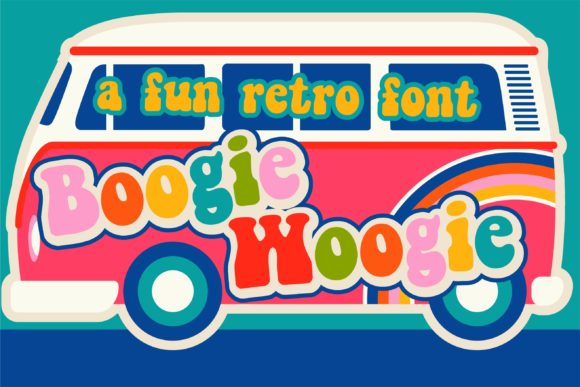
Prepare yourself to be entranced by the PN Boogie Woogie font, a groovy and eye-catching display font that exudes an infectious retro charm. Designed by the talented team at Illustration Ink, this font is a vibrant and playful dance of characters that will bring a smile to your face and transform your creative projects into captivating works of art.
Picture this: the smooth curves and charming imperfections of PN Boogie Woogie playfully dancing across your screen, evoking memories of vintage record covers, funky 70s posters, and sun-soaked summer days. Whether you're crafting eye-catching social media posts, designing unique logos, or creating playful invitations, this font will add an irresistible touch of retro flair that will make your designs stand out from the crowd.
Step into the world of PN Boogie Woogie and let your creativity soar. Its delightful characters are perfect for adding a dash of nostalgia and personality to any project. Imagine your designs bursting with energy and character as this font captures the essence of classic retro styles while adding a modern twist. Feel the joy of creating designs that emanate warmth and charm, inviting your audience to embark on a whimsical journey through time.
With PN Boogie Woogie, you hold the key to unlocking a treasure trove of creative possibilities. Its versatility knows no bounds, making it the perfect companion for a myriad of projects. Unleash your imagination and let the font's groovy rhythm guide you as you craft stunning posters, vibrant flyers, captivating book covers, and anything else your heart desires. The possibilities are endless, just like the smiles this font will bring to your audience.
So, dive into the enchanting world of PN Boogie Woogie and let your designs boogie to the beat of its captivating rhythm. Embrace the groovy vibes, add a touch of retro magic, and spread happiness wherever your designs go. Get ready to ignite your creativity and make an unforgettable impact with every project you undertake.